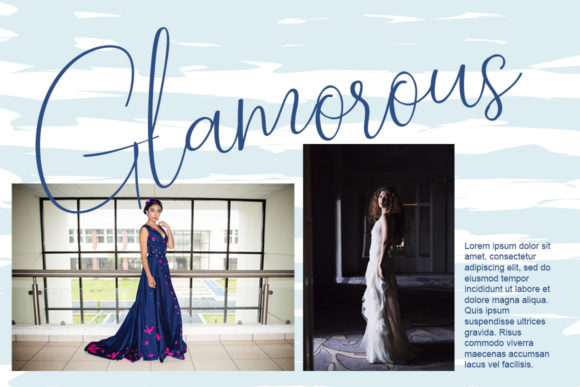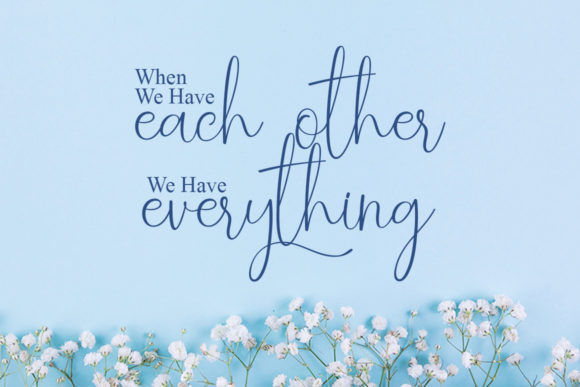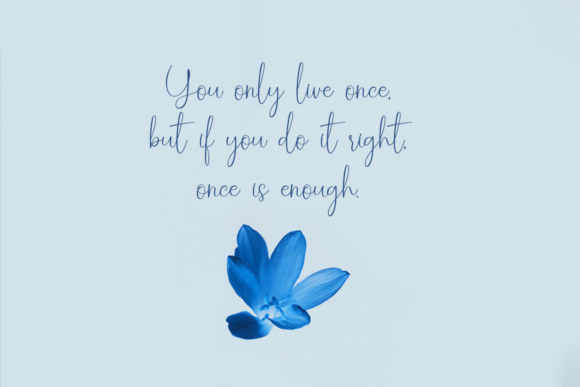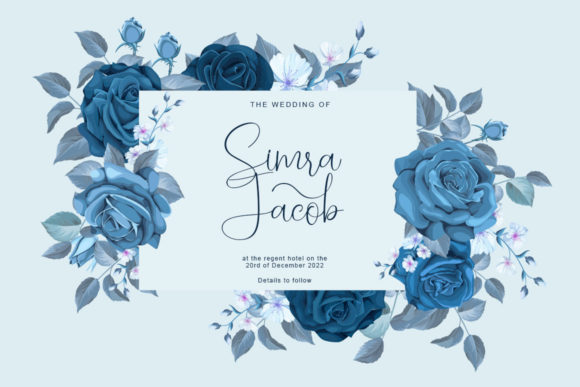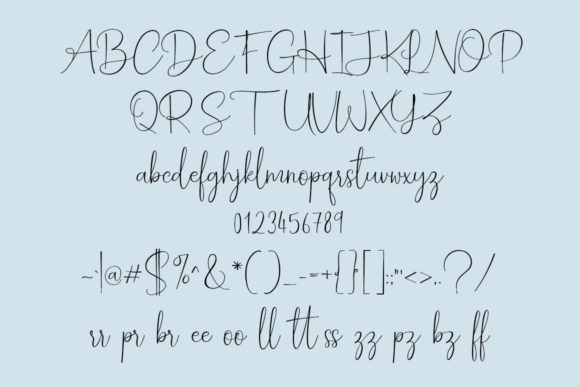
Dallaion Font: Elevate Your Designs with Elegant Script
Are you a designer or crafter looking for a beautiful script font to add a touch of elegance to your creations? Look no further than Dallaion Font. This stunning script font is designed to flow effortlessly across the page, making it perfect for a variety of design projects. In this article, we’ll take a closer look at Dallaion Font and explore its features, benefits, and uses.
What is Dallaion Font?
Dallaion Font is a beautiful script font that is characterized by its flowing, cursive letters. The font is designed to be highly legible and versatile, making it suitable for a range of design applications, from wedding invitations and branding materials to packaging and digital media.
Key Features of Dallaion Font
So, what makes Dallaion Font so special? Here are some of its key features:
- Elegant script design: Dallaion Font features a beautiful, flowing script design that adds a touch of elegance to any design project.
- Effortless flow: The characters in Dallaion Font flow effortlessly across the page, creating a smooth and harmonious visual effect.
- High legibility: Despite its elegant design, Dallaion Font is highly legible, making it suitable for use in a variety of design applications.
- Versatile: Dallaion Font can be used in a range of design projects, from print materials to digital media.
Benefits of Using Dallaion Font
So, why should you choose Dallaion Font for your design projects? Here are some of the benefits of using this beautiful script font:
- Adds elegance to your designs: Dallaion Font adds a touch of elegance and sophistication to any design project, making it perfect for high-end branding and marketing materials.
- Creates a lasting impression: The unique and flowing design of Dallaion Font creates a lasting impression on the viewer, making it perfect for use in advertising and promotional materials.
- Enhances readability: Despite its elegant design, Dallaion Font is highly legible, making it easy for readers to quickly scan and understand the text.
- Stand out from the crowd: Dallaion Font is a unique and distinctive font that will help your designs stand out from the crowd.
Uses of Dallaion Font
Dallaion Font is a versatile font that can be used in a range of design applications, including:
- Wedding invitations and stationery: Dallaion Font is perfect for use in wedding invitations, save-the-date cards, and other stationery.
- Branding and marketing materials: The elegant design of Dallaion Font makes it perfect for use in branding and marketing materials, such as logos, business cards, and brochures.
- Packaging design: Dallaion Font can be used in packaging design to add a touch of elegance and sophistication to product labels and packaging.
- Digital media: Dallaion Font can be used in digital media, such as website headers, social media graphics, and email marketing campaigns.
Tips for Using Dallaion Font
Here are some tips for using Dallaion Font in your design projects:
- Use it sparingly: Dallaion Font is a beautiful and elegant font, but it can be overwhelming if used too much. Use it sparingly to add a touch of elegance to your designs.
- Pair it with a sans-serif font: Pairing Dallaion Font with a sans-serif font can create a beautiful contrast and add visual interest to your designs.
- Experiment with different colors: Dallaion Font looks beautiful in a range of colors, so experiment with different colors to find the one that works best for your design.
Dallaion Font is a beautiful script font that is perfect for designers and crafters looking to add a touch of elegance to their creations. With its elegant design, effortless flow, and high legibility, Dallaion Font is suitable for use in a range of design applications. Whether you’re creating wedding invitations, branding materials, or packaging design, Dallaion Font is a great choice. So why not give it a try and see how it can elevate your designs?